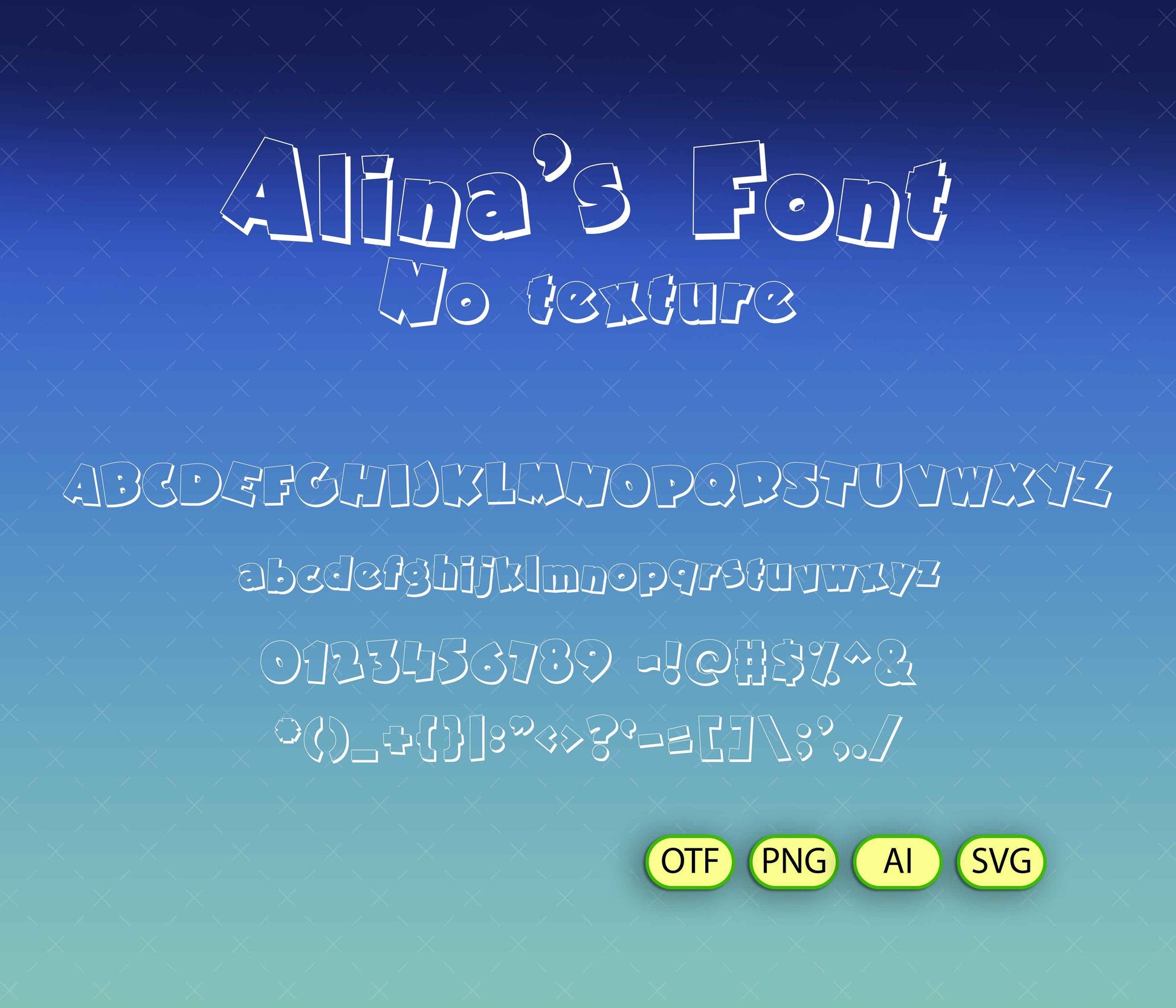
Monday-Hating Tabby Font
Step into the whimsical world of a lasagna-loving feline with our specially designed font, capturing the essence of everyone's favorite Monday-hating cat. Perfect for fans, comic creators, event organizers, and designers, this font brings the playful, sarcastic spirit of this legendary comic strip to your projects. Create event invitations, themed merchandise, or digital content with the humorous energy of this beloved character.
Our Monday-Hating Tabby font features fun, bouncy characters reflecting the comical nature of the iconic orange tabby. Ideal for:
- Event Promotions: Striking invites, posters, banners for comic conventions, themed parties, celebrations
- Merchandise Design: T-shirts, posters, accessories capturing the essence of feline humor
- Digital Media: Enhance websites, blogs, social media with witty headers and graphics
- Comic Content: Authentic flair for comic strips, fan art, greeting cards
- Personal Projects: Playful energy for scrapbooking, DIY crafts, home decor inspired by the food-loving cat
Our font pays tribute to the legendary comic strip cat, empowering your designs with its sarcastic and humorous spirit. Whether crafting promotional materials, designing merchandise, or adding a comical touch to personal projects, this font communicates the beloved essence of this lasagna-loving feline. Ready to inject some feline fun into your creations? This font is your key to playful, impactful design.